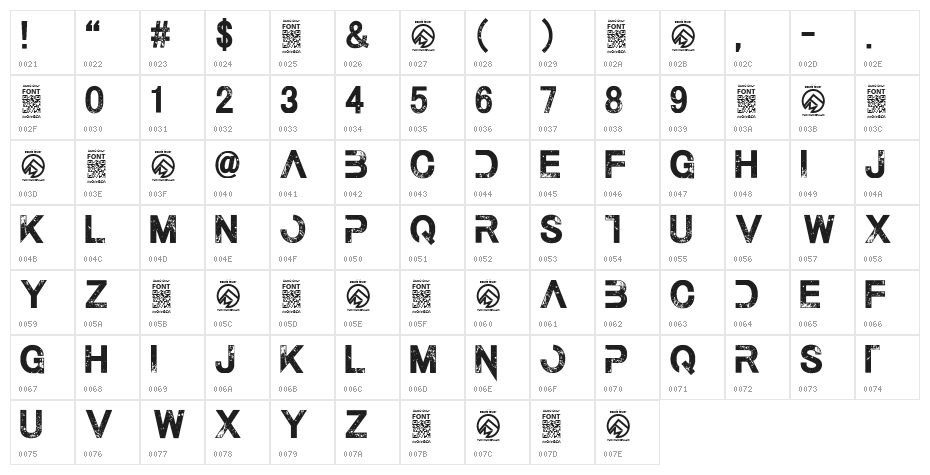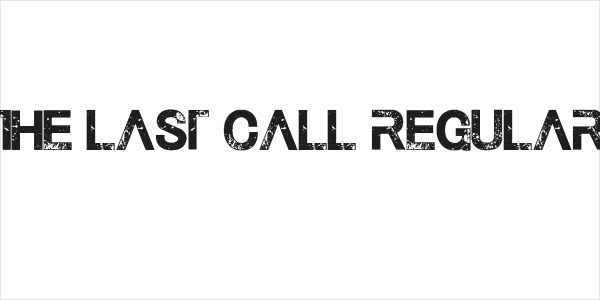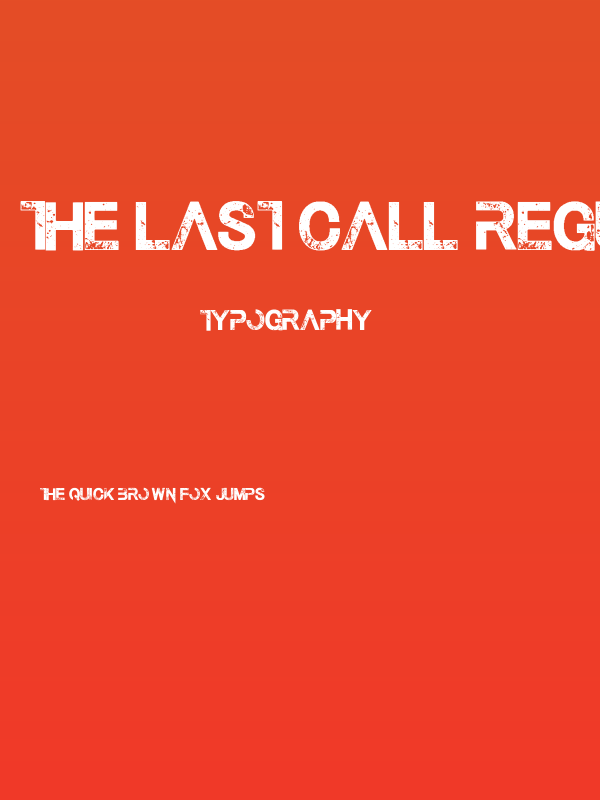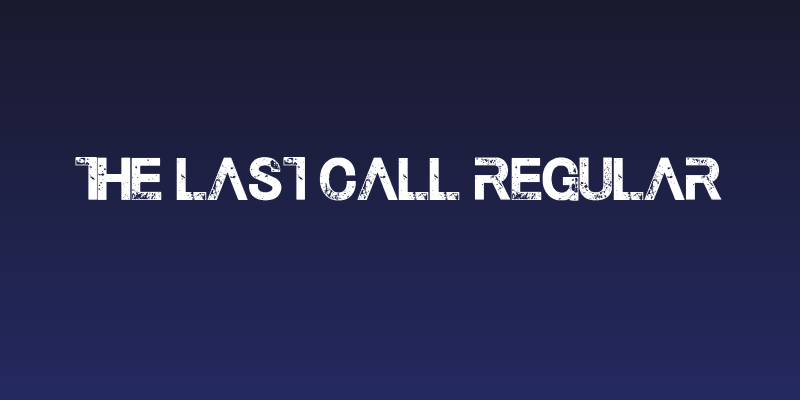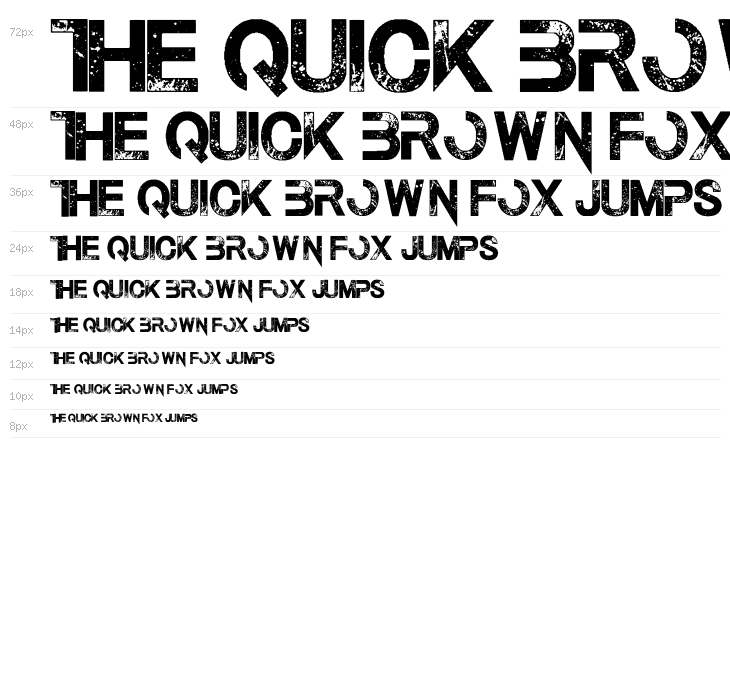
The Last Call Regular Font
| カテゴリ | Messy |
| 全体的なスタイル | Grunge, Edgy |
| おすすめプロジェクト | Ideal for posters, album covers, branding for alternative events, and any project needing a strong, edgy aesthetic. |